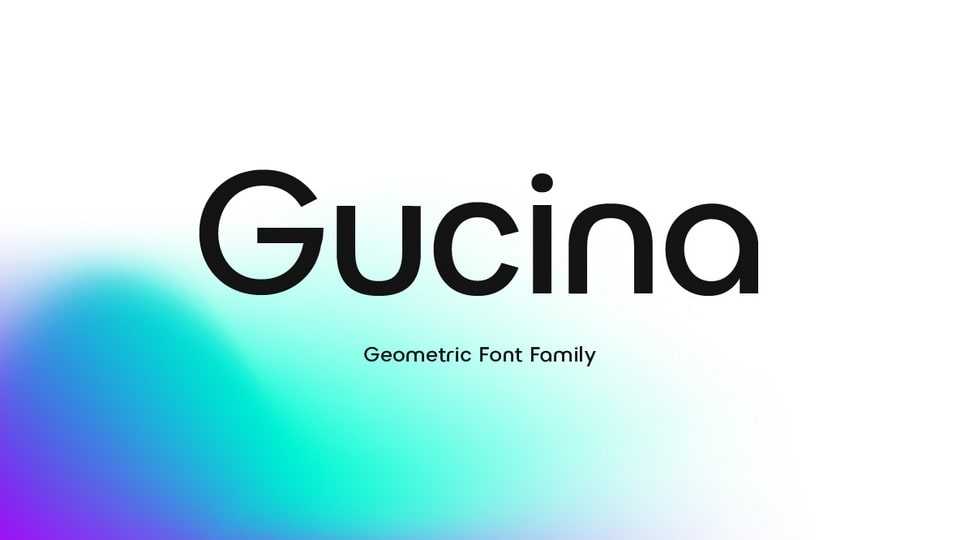
Download Gucina font, a versatile typeface that will add a touch of sophistication to your designs. With its clean lines and geometric shapes, Gucina font is perfect for creating minimalistic logos, advertisements, web designs, and branding materials.
Designer: Yukita Creative